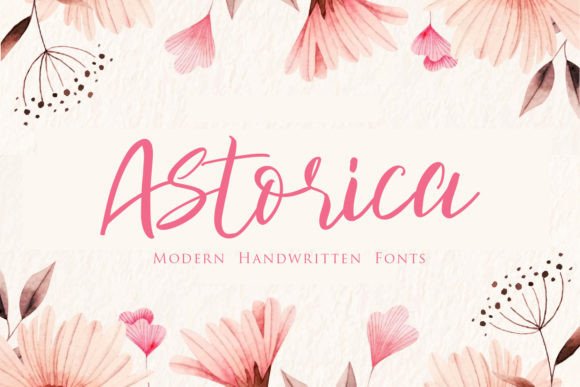
The Elegance of Astorica Font: A Designer’s New Best Friend
I still remember the project that led me to discover Astorica Font. I was working on a wedding invitation design for a client who wanted something elegant and sophisticated. I had spent hours browsing through font libraries, but nothing seemed quite right. That was until I stumbled upon Astorica – a modern handwritten script font that instantly caught my eye. Its flowing letterforms and fine details seemed to capture the essence of handcrafted calligraphy, and I knew I had found the perfect fit.
An Honest Review of Astorica Font
So, what makes Astorica Font so special? Let’s dive into the good stuff and a few quirks I’ve noticed.
- ✨ Elegant and sophisticated feel that’s perfect for high-end designs
- ✅ Flowing and fluid letterforms that mimic handcrafted calligraphy
- 💫 Fine details and graceful curves that add a touch of refinement to any design
- 🎨 Versatile and suitable for a wide range of projects, from wedding invitations to branding and packaging
While Astorica Font is an excellent choice for many designs, there are a few things to keep in mind:
- ⚠️ Some of the more intricate details may not render well at smaller font sizes
- 🤔 The font’s elegance may not be the best fit for very playful or casual designs
A Practical Guide to Using Astorica Font
The Story Behind Astorica Font
While the true story behind Astorica Font’s creation may be unknown, it’s easy to imagine a designer sitting at their desk, pouring their heart and soul into crafting a font that exudes elegance and sophistication. Perhaps they were inspired by the flowing scripts of the past, with a desire to create a modern take on classic calligraphy.
Q: What makes Astorica Font so elegant?
A: Astorica Font’s elegance comes from its flowing and fluid letterforms, fine details, and graceful curves, which capture the essence of handcrafted calligraphy.
Q: Is Astorica Font difficult to read?
A: While Astorica Font is elegant and sophisticated, it can be a bit more challenging to read at smaller font sizes. However, at larger sizes, it becomes much more legible.
Q: Can I use Astorica Font in digital designs?
A: Absolutely! Astorica Font is versatile and can be used in a wide range of digital designs, from social media graphics to website headers and more.